The best new typefaces for June 2026
For all you graphic designers out there, we've rounded up the latest big releases from foundries across the planet. From display fonts to classic serifs and a family inspired by Iceland's wild landscape, June's offering is so good that some might end up in your current projects.
At Glacier by Omar Careaga
There's something about midsummer that seems to bring out the best in type foundries and designers. Maybe it's the long days. Maybe it's a rush of projects finally being signed off on. Whatever it is, June has an unusually rich crop: revivals lovingly reworked, stencils that break their own rules, and display faces with enough presence to fill a poster that could be seen from space. Well, perhaps not. But you get the picture.
What I love about this month's haul is the sheer range. This is creativity at its finest. There are monospaced workhorses built for important data, dashboards and tidy code. We have warm wedge serifs that nod to mid-century America. There's even a display face carved straight out of Iceland's volcanic landscape.
Whether you're after something quiet and dependable or loud and unapologetic this June, Creative Boom has you covered. So grab a brew, settle in, and see which of the following typefaces make their way into your next project.
Sticks by Nguyen Gobber
Sticks is a monospaced typeface built from rectangular shapes with rounded inner corners, reminiscent of reinforced joints in precision-cut metal components. Its strict, rigid appearance follows the same visual language of construction, technology, and industrial machinery. Perfect for any branding projects in that field.
Originally released in 2019 and discontinued a few years later, the typeface was fully reworked, expanded, and re-released this month as a family of individual styles and a variable font. Nicely done, Nguyen Gobber.
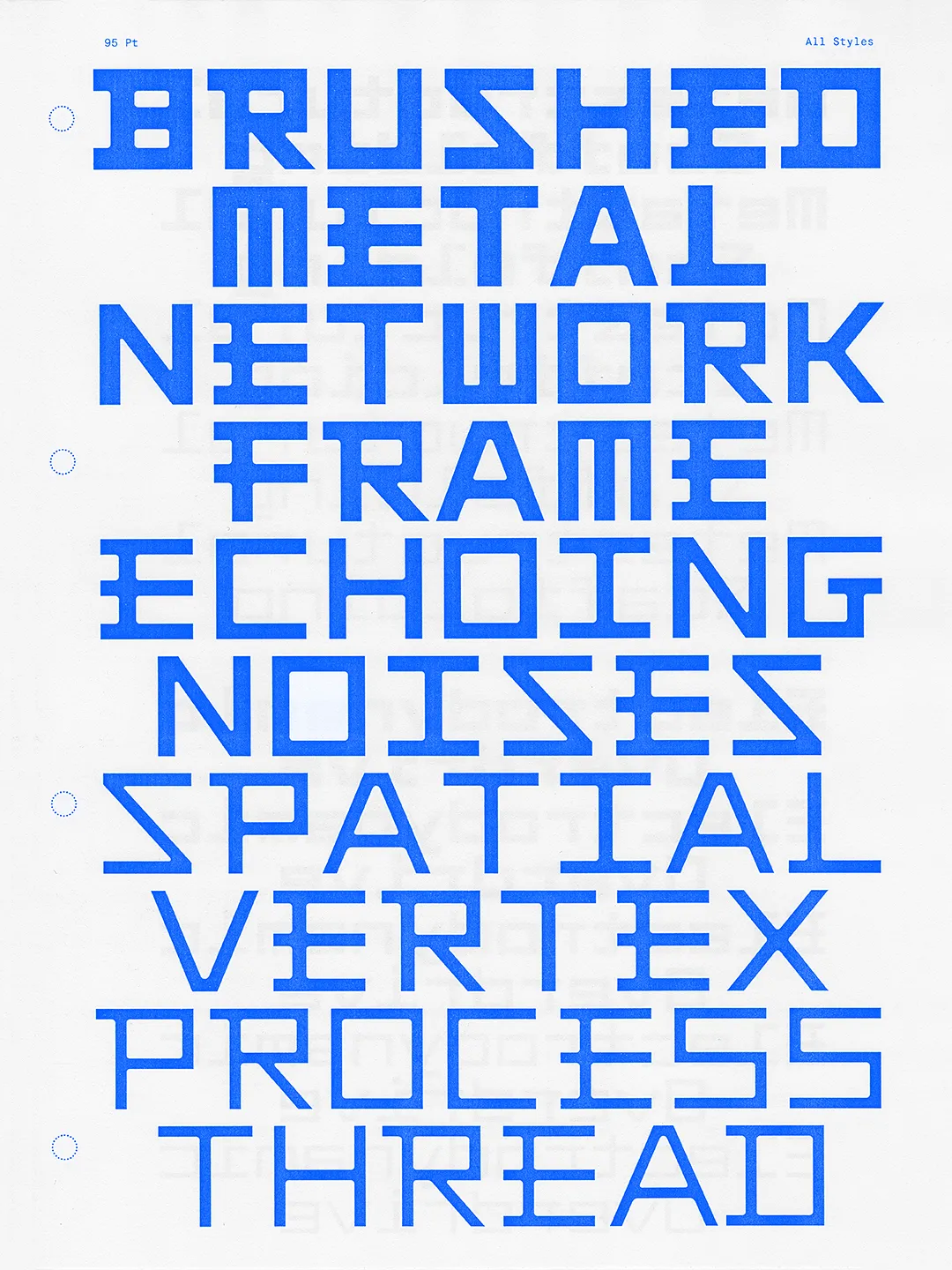
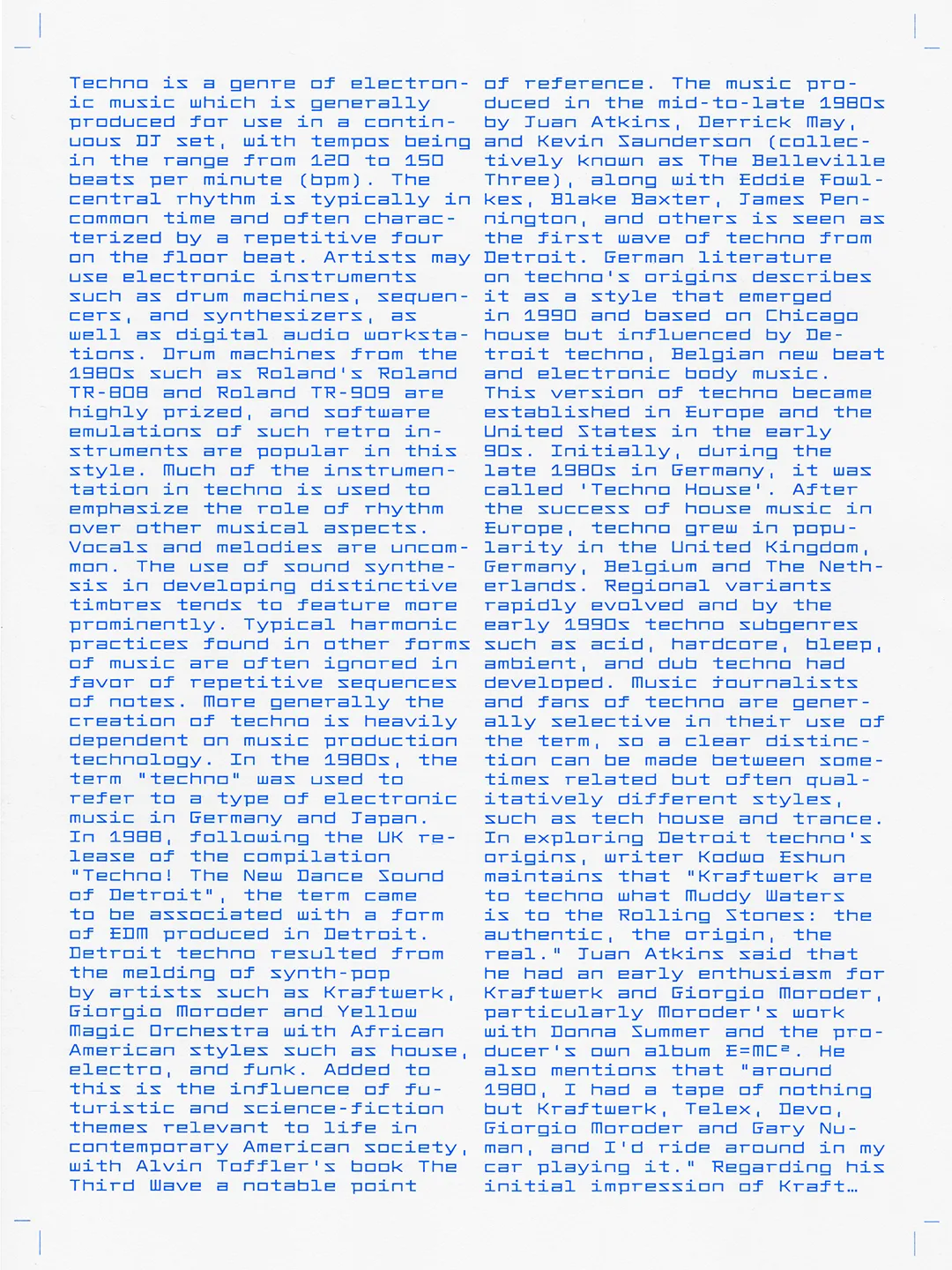
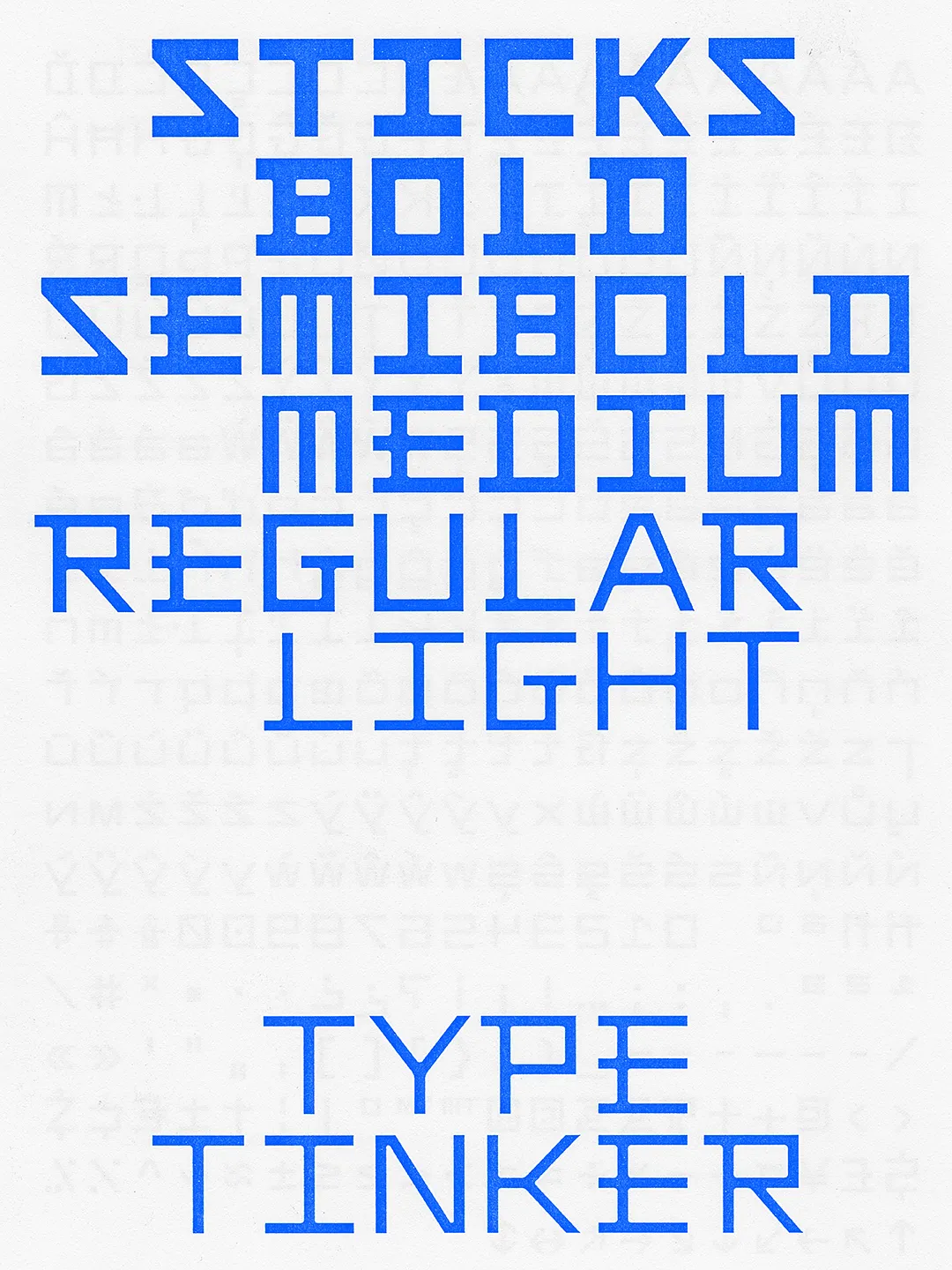
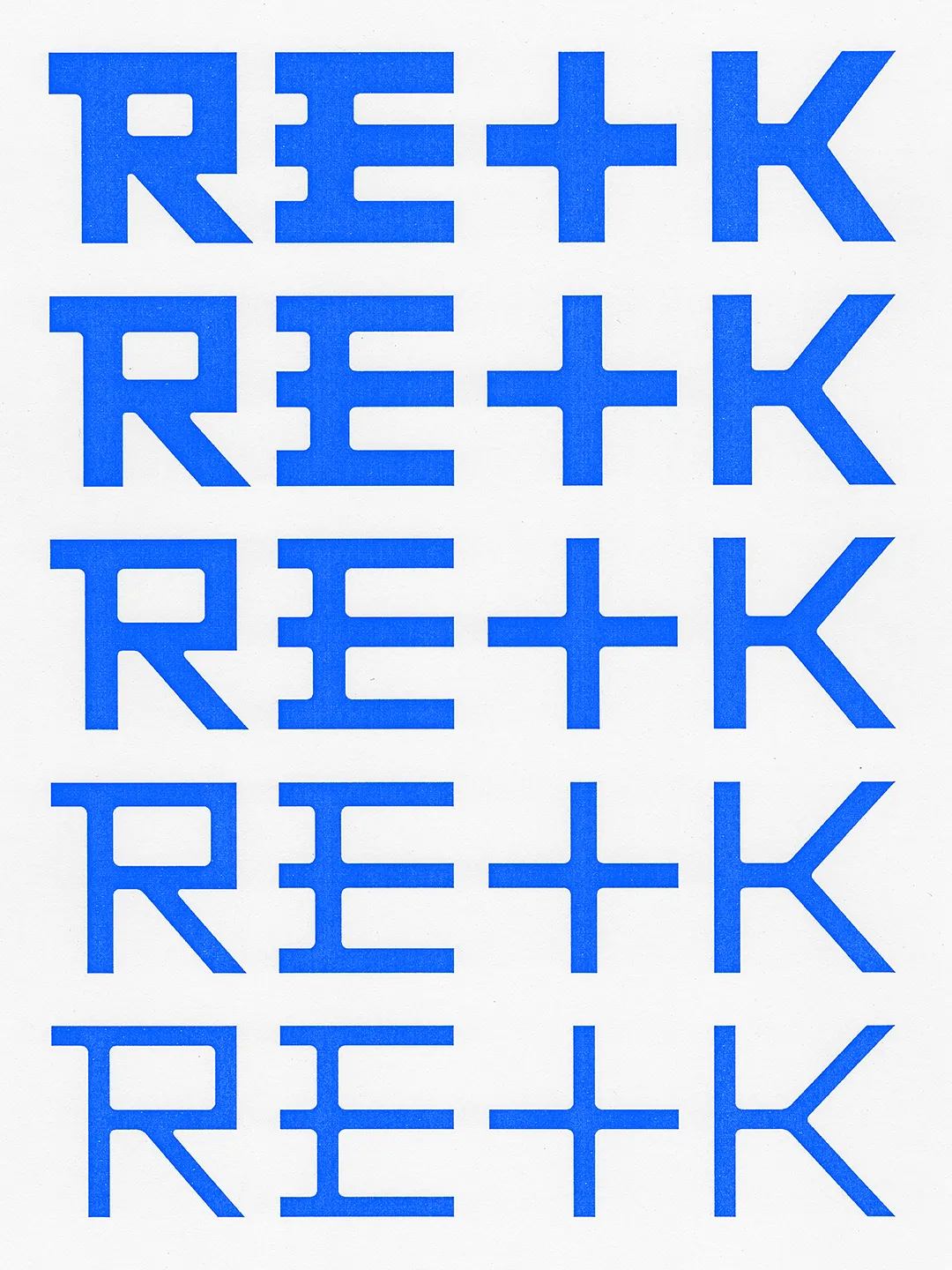
Sahlia Stencil by Arcane Type Foundry
Introducing Sahila Stencil, the latest release from Arcane Type Foundry and an expansion of its existing typeface Sahlia, from a single weight to a 10-style family with true italics and a variable font that covers all styles.
Sahlia is a stencil typeface that breaks all the rules. Where most stencils slice away parts of the letters, Sahlia's extreme contrast dissolves the thin parts entirely, as though worn away over time. The result feels both structured and organic: sharp, high-contrast serifs softened by delicate forms.
In the lighter weights, Sahlia has a graceful presence, while at its heaviest, it becomes more dramatic, yet it keeps its luxurious tone.
Designed for projects that want to make an elegant statement but with a little edge, Sahlia performs in editorial layouts, on luxury packaging, and across lifestyle content. Think candles, self-care, and slow living... that sort of thing.
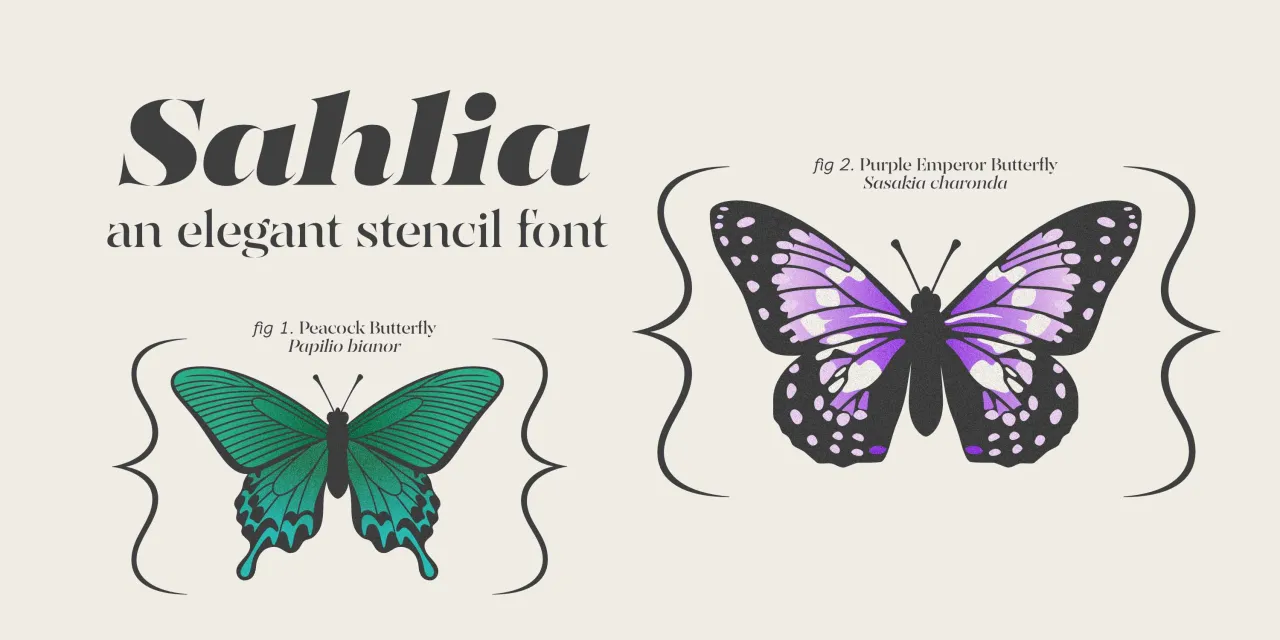
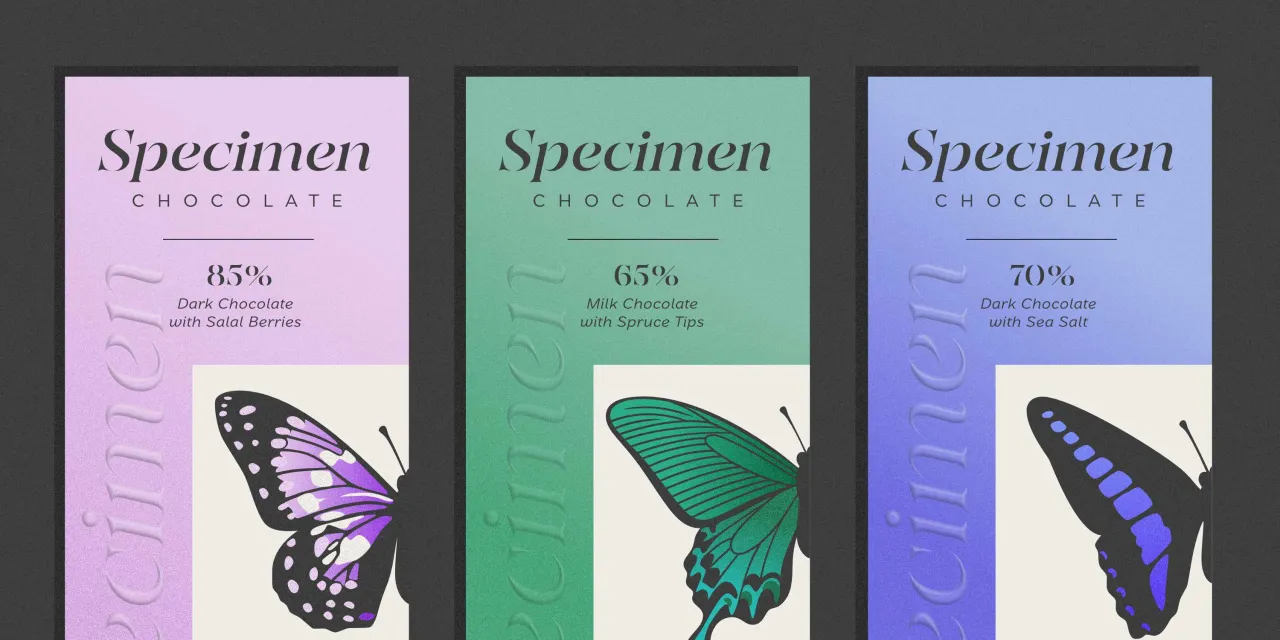
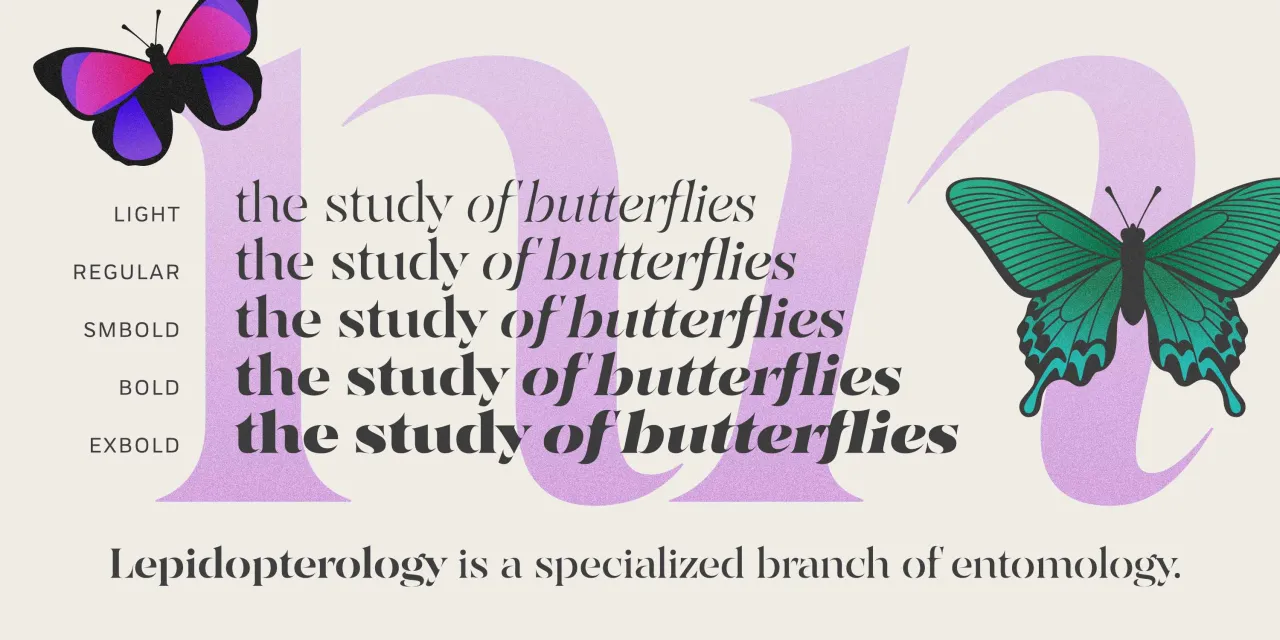
Curo by Silver Stag Type
SLTF Curo is a super-heavy display sans-serif typeface designed for brands that want some serious presence. Built around a single extreme weight, Curo comes in five distinct corner-style variants: Sharp, Crisp, Regular, Soft, and Rounded, giving designers a complete tonal range within a single typeface family.
Each variant carries the same bold, unapologetic mass but shifts in character. From the hard-edged tension of Curo Sharp to the warm, voluminous fullness of Curo Rounded, the result is a complete design system of five fonts available with a single purchase.
Curo's large x-height and tight counters make it exceptionally impactful at display sizes. A distinctive lowercase 'g', expressive curves, and an alternate single-story 'a' give it a personality that is both retro and unmistakably contemporary. Built for headlines, packaging, logos, posters, and anywhere a brand needs to take up space with total confidence.
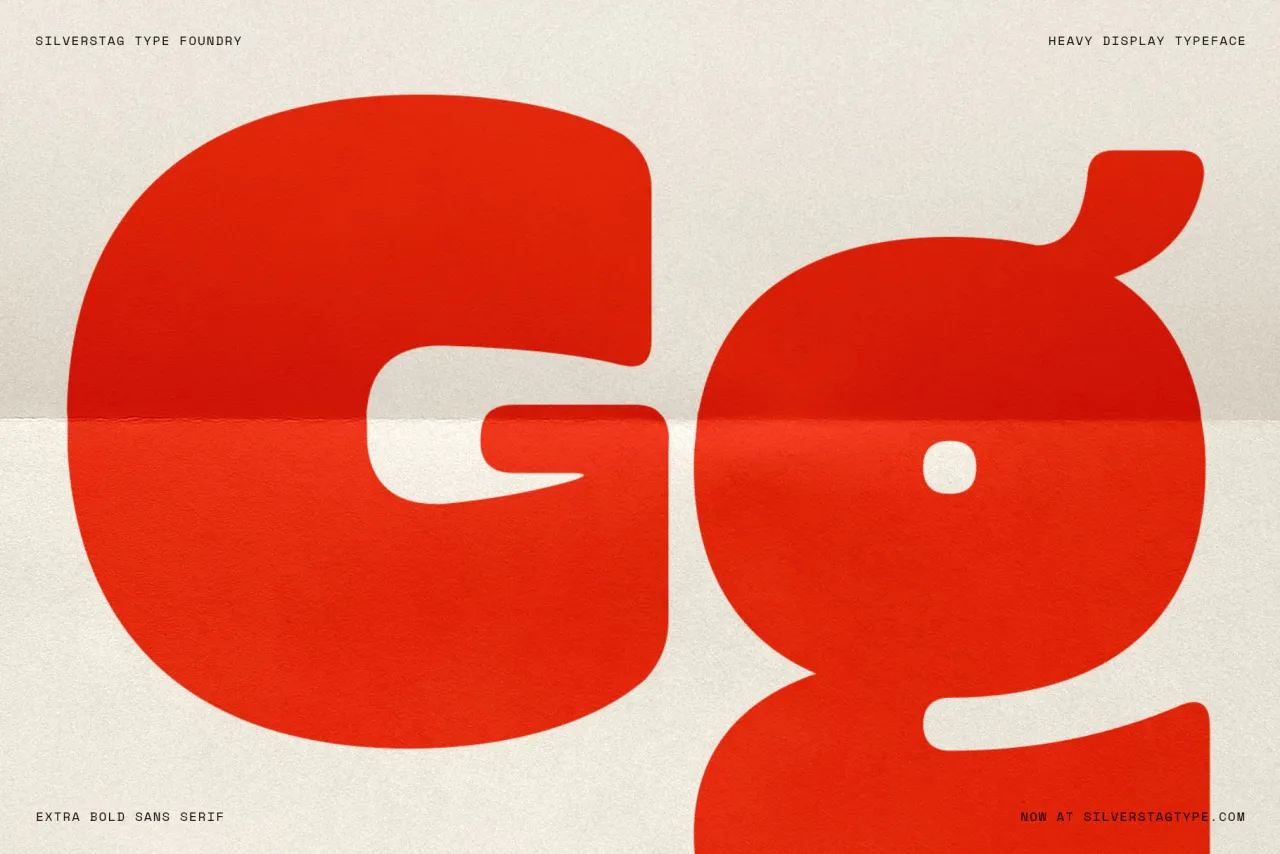
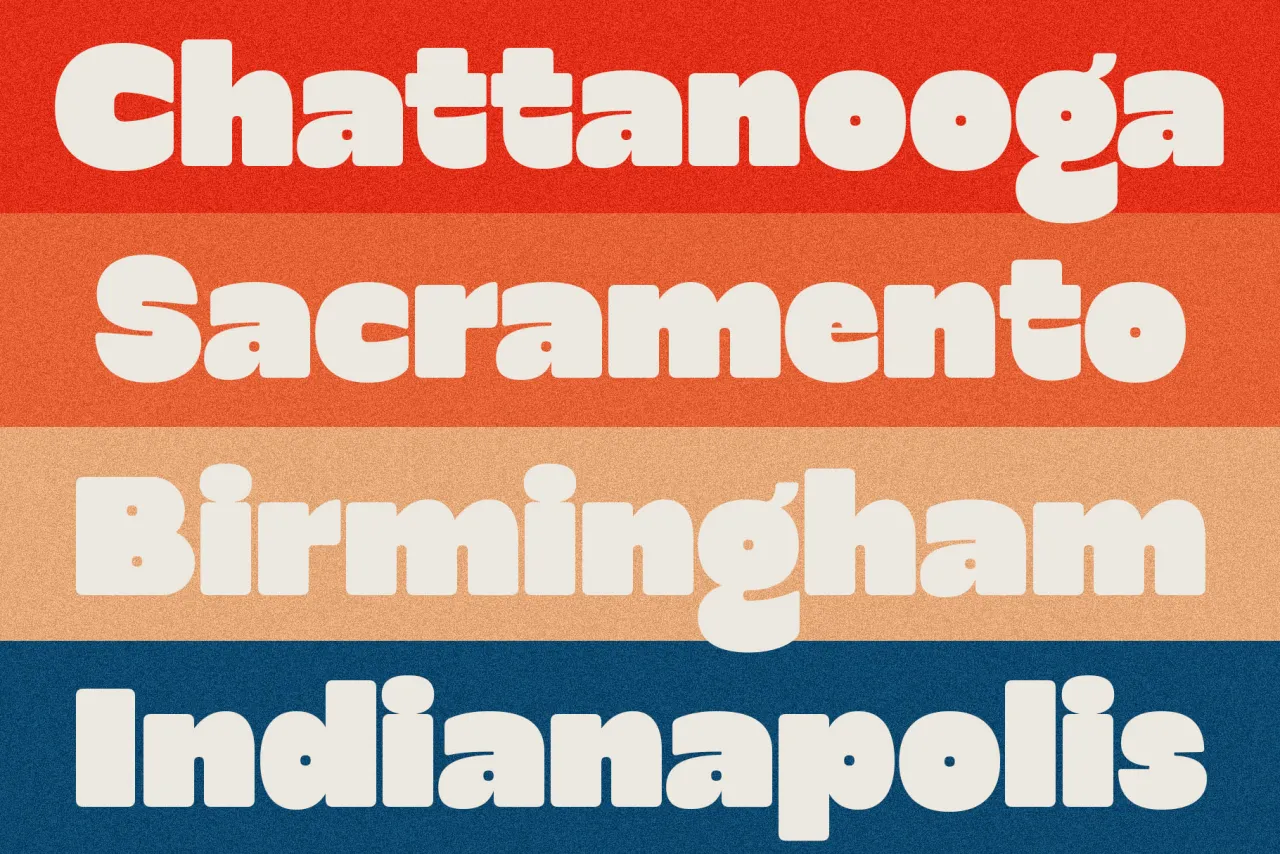
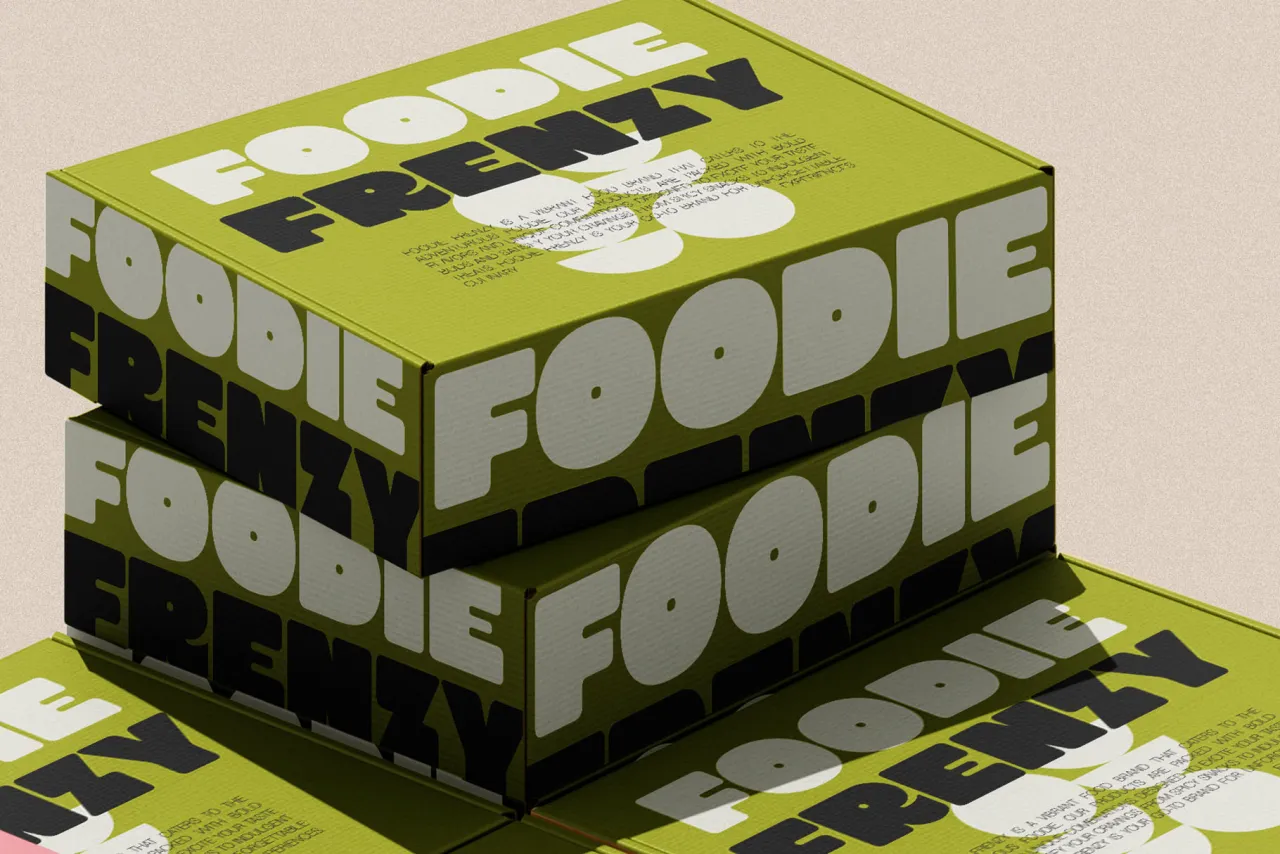
Unifora by Yep! Type
Another bold statement for our June round-up is Unifora by Yep! – a massive sans-serif uniwidth superfamily with an industrial edge and architectural feel. "Unifora starts where DIN leaves off, taking the constructed logic of technical lettering and pushing it to meet the demands of modern screens, without softening the edges," explains the foundry.
It comes with five widths, nine weights, and matching italic and roman styles with slants up to 18 degrees. The variable font spans all three axes: weight, width, and slant—in both directions. What's more, the superfamily is available as five standalone sub-families, each built around the uniwidth principle... that is, within any given width, every glyph holds its advance width across all weights and styles. In practice, that means text never reflows when the weight shifts.
Unifora Condensed works for data-dense interfaces like dashboards, table columns and tight mobile layouts. Meanwhile, Unifora Narrow handles compact body copy and sidebars. Unifora Standard is the default width – comfortable with everything from small UI labels to large display. Then there's Unifora SemiExpanded for display, signage and wide-format applications where letterforms need space to breathe. If all that sounds complicated, there's a user manual to help you decide which is best for you.
The upshot is a face built for all the familiar headline territory – film titles, TV graphics, book covers, posters – that still has room to shift tone. Or, as Clarke neatly puts it, a typeface that's "expressive, not oppressive". A fitting typeface to round things off this month.